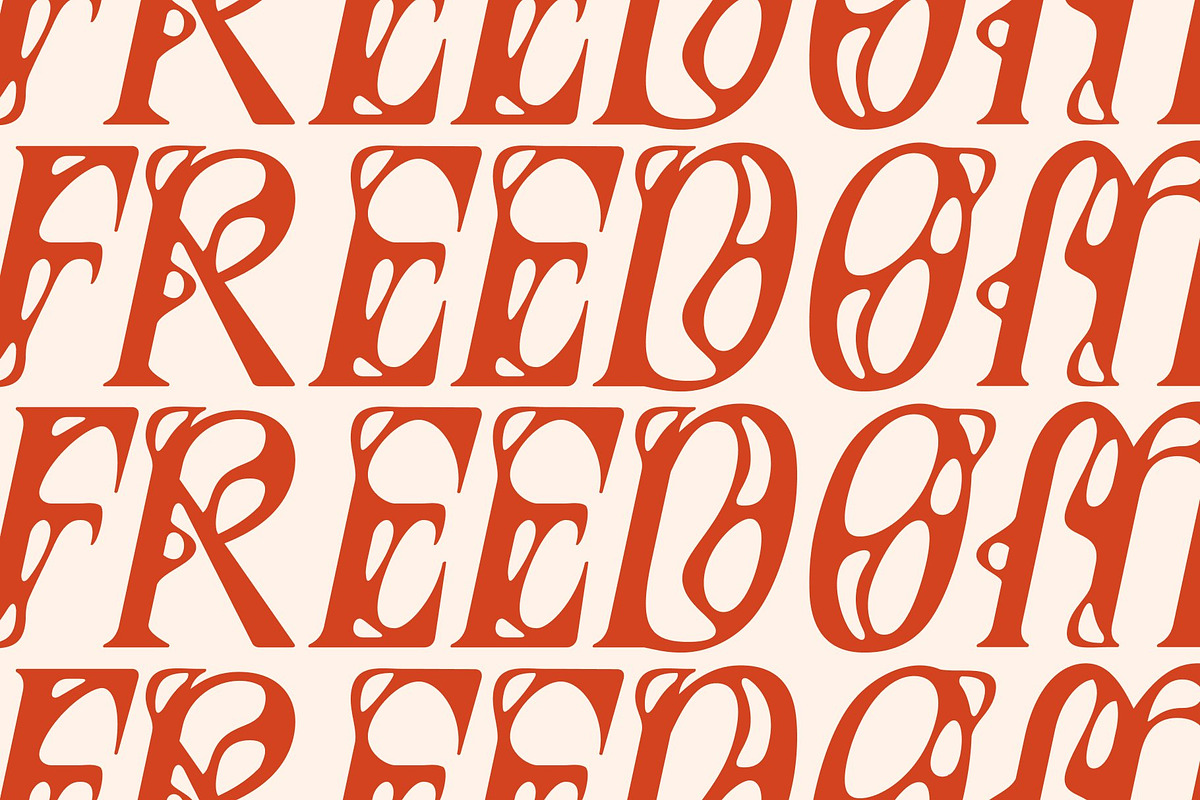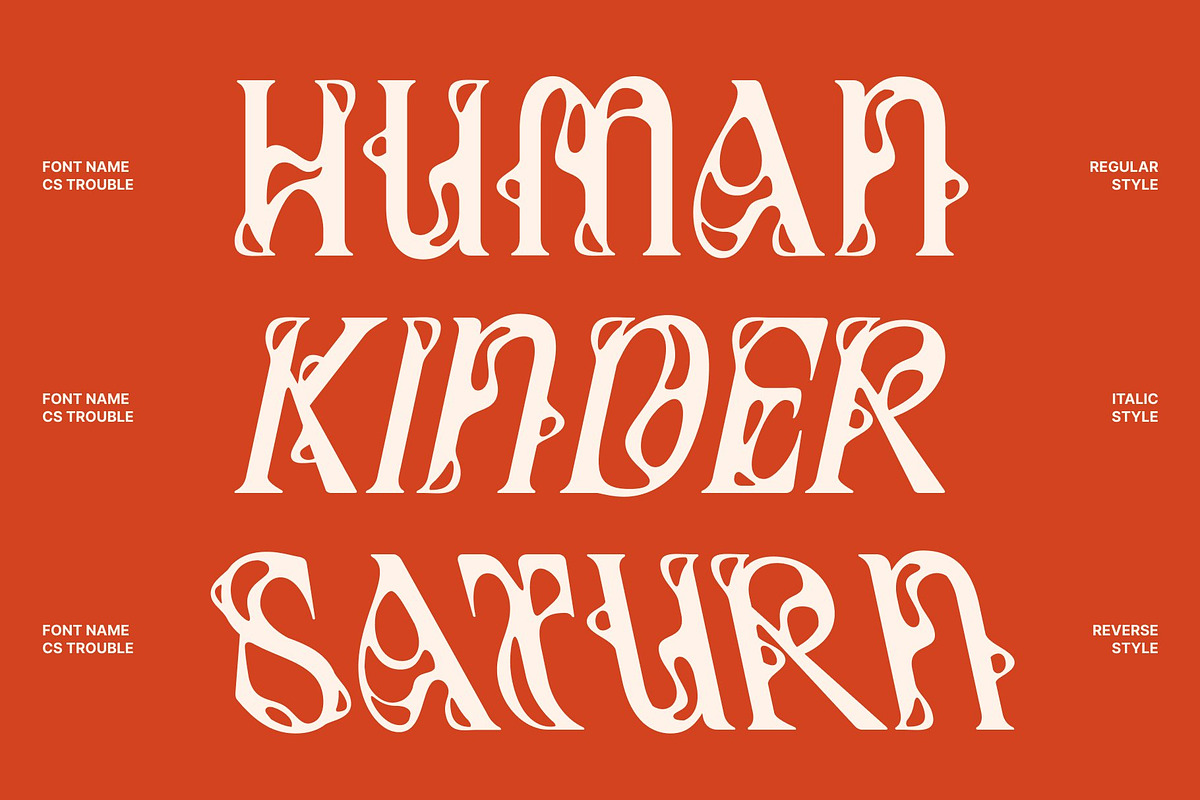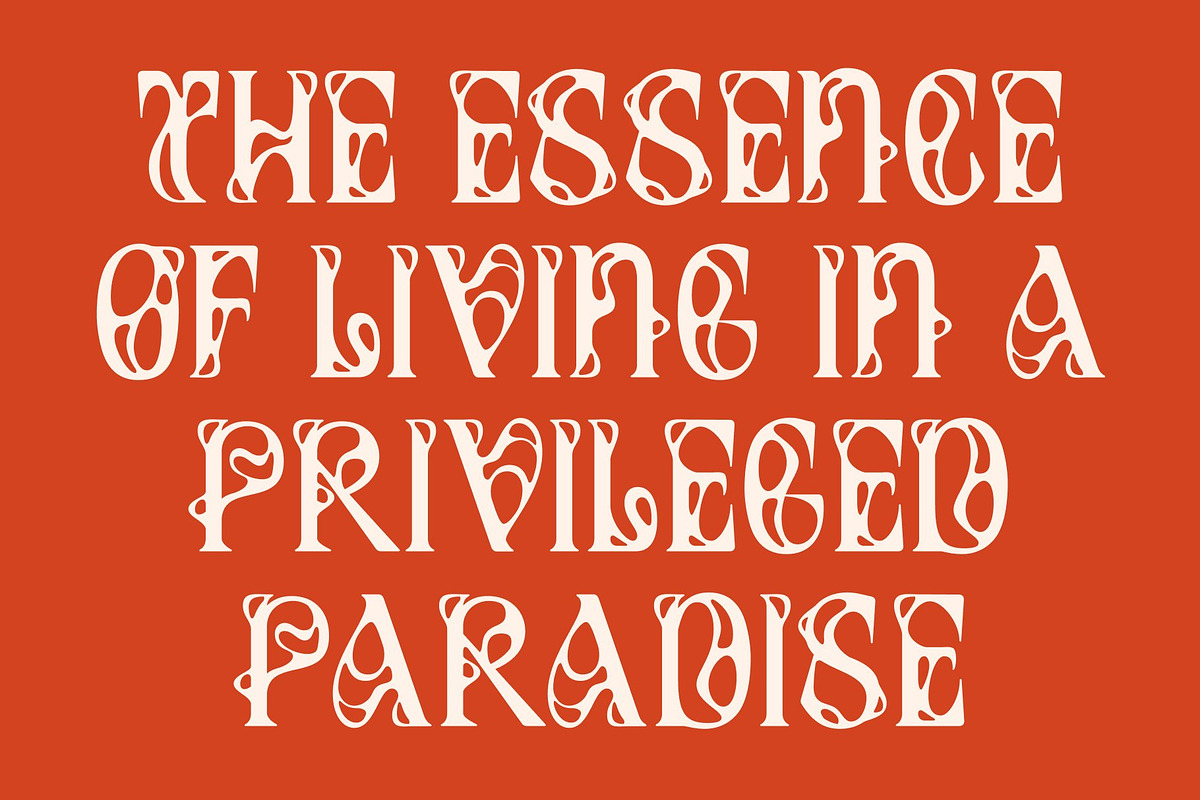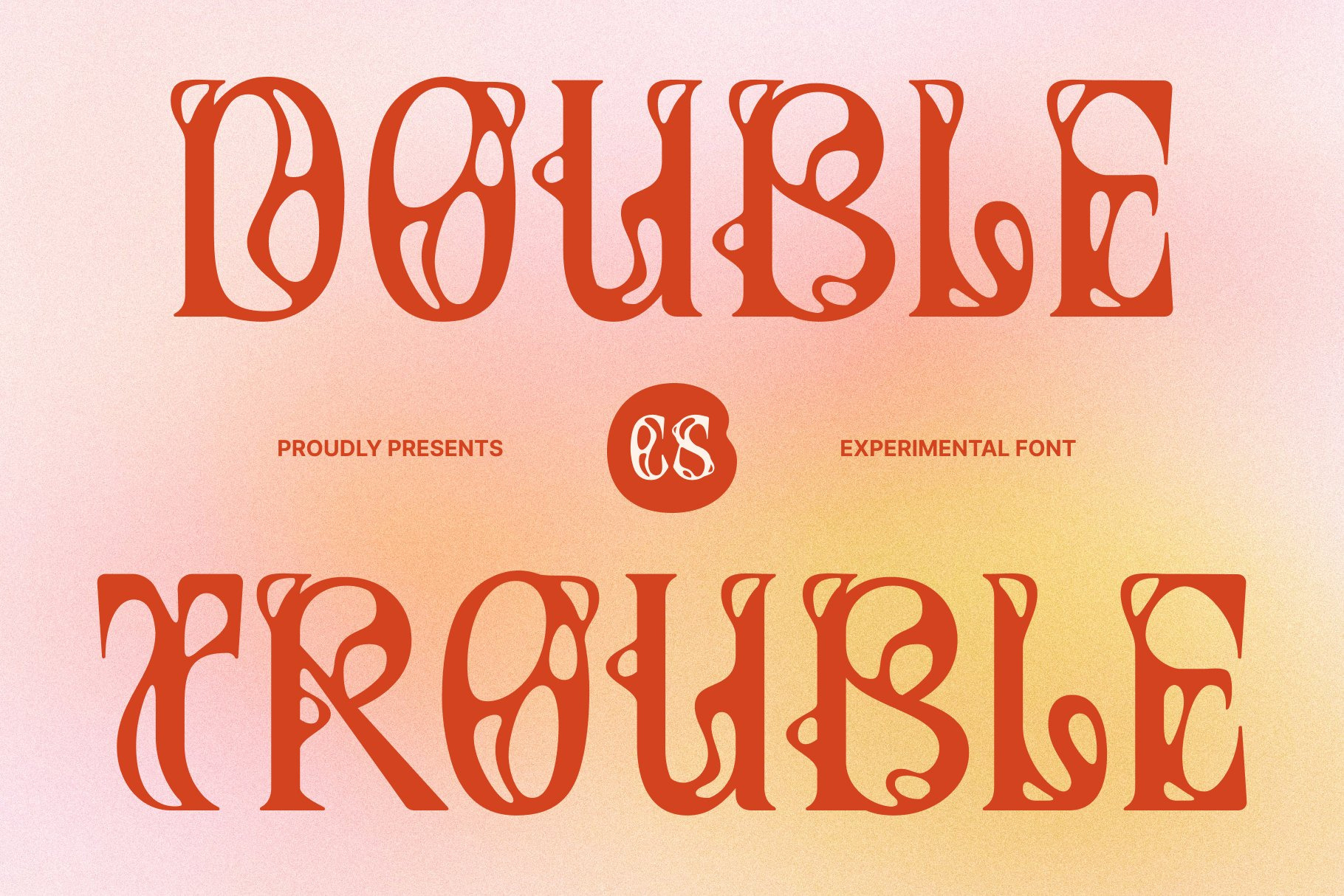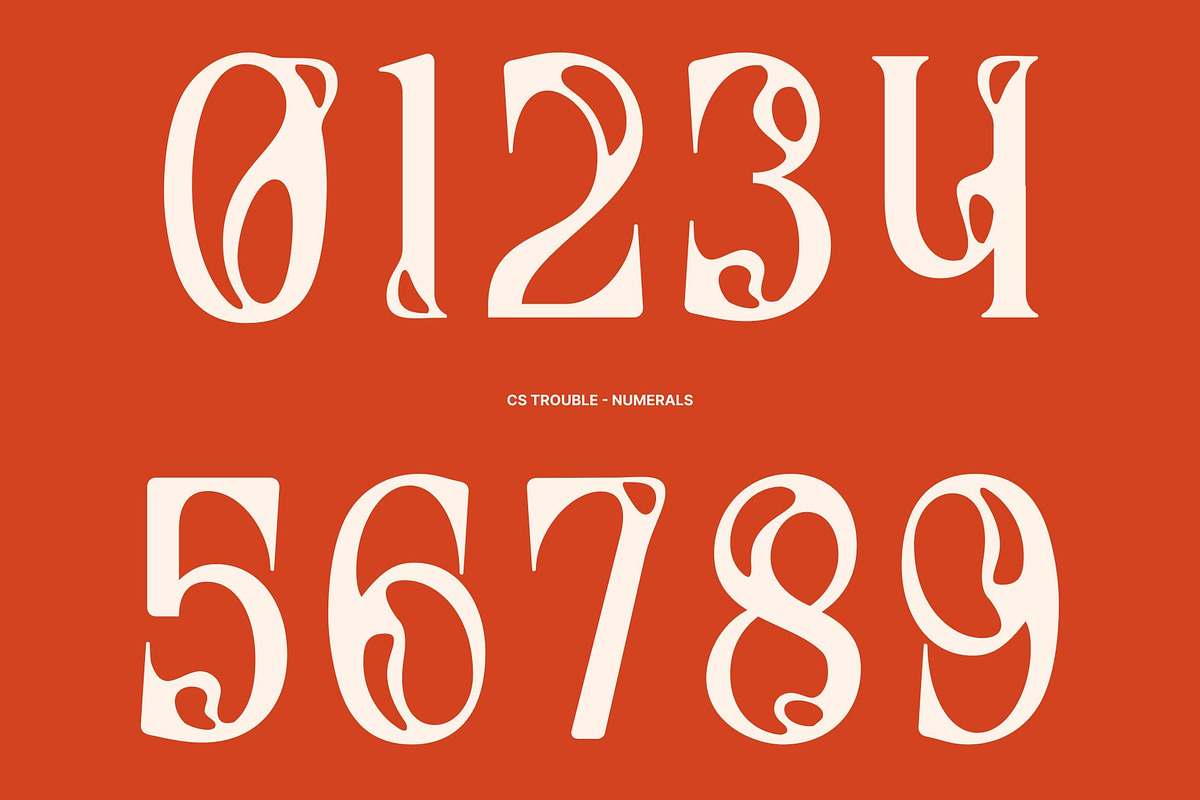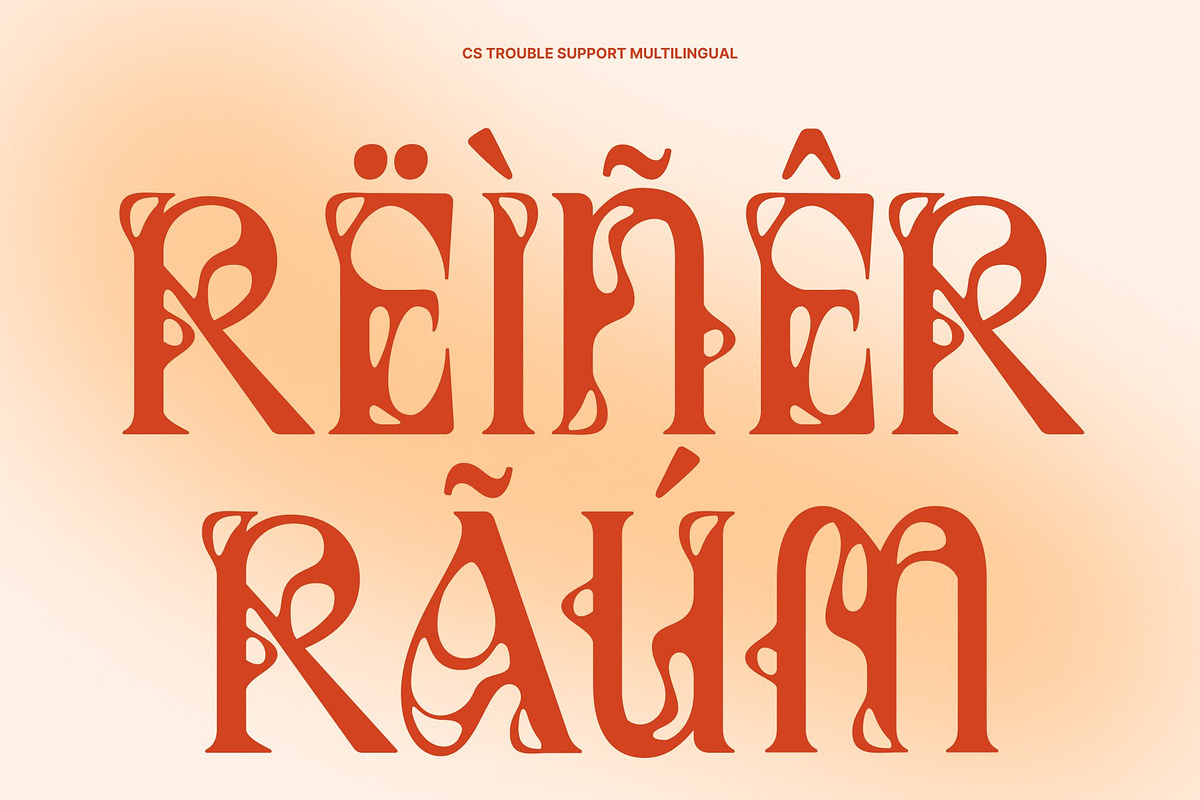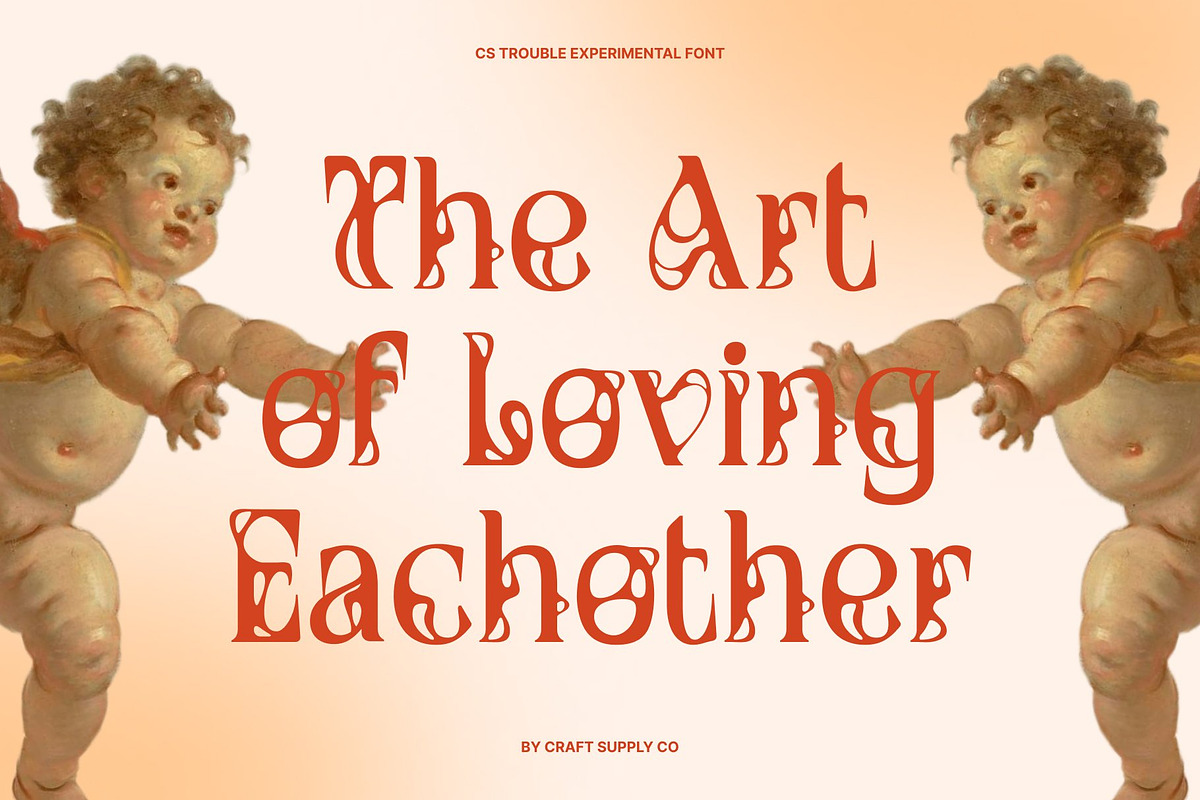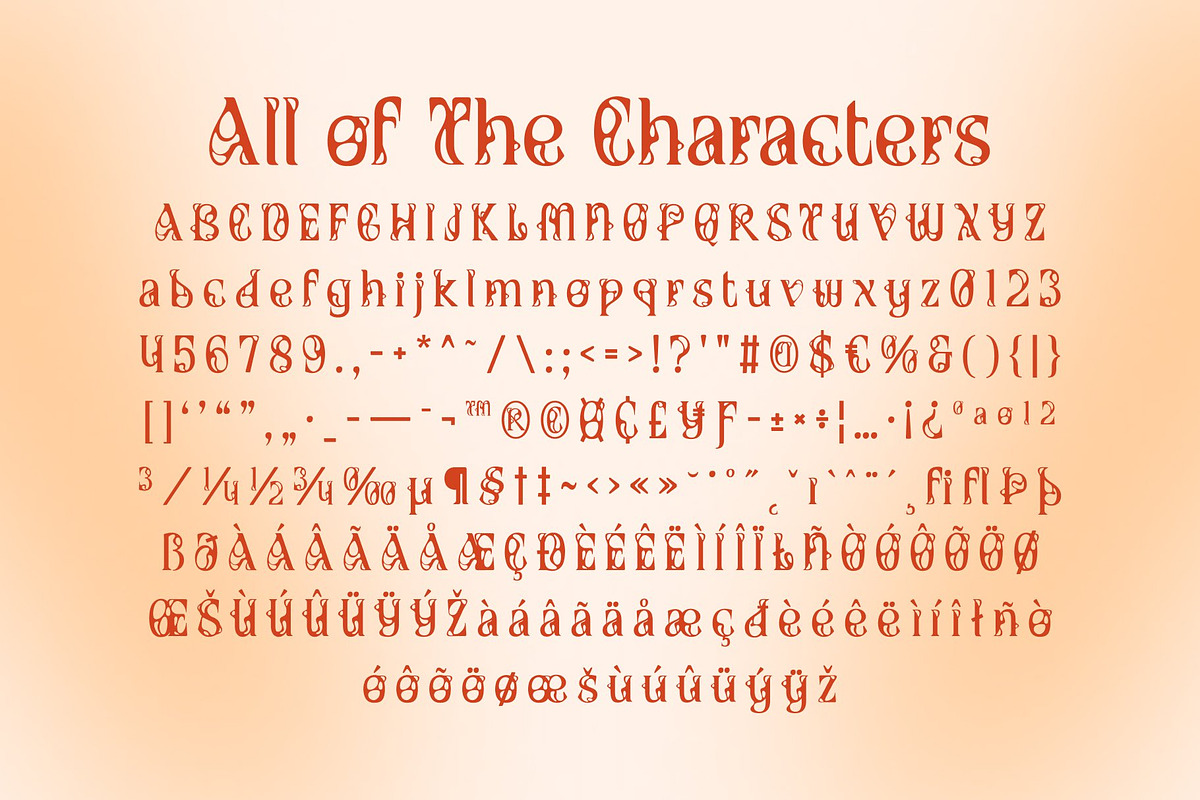
Trouble – Melted Serif Font
CS Trouble – Experimental Melted Serif with Artistic Flow
Stylish Serif with Unique Melted Concept This is a stylish serif font that transforms classic typography into a bold artistic statement. Designed with a distinctive melted concept, this typeface blends traditional serif elegance with experimental creativity. The result is a font that feels expressive, unconventional, and instantly eye-catching, perfect for designers who want to push visual boundaries.
Fluid Letterforms with Dripping Movement The defining feature of this font lies in its flowing, melted letterforms that appear to drip and move with controlled energy. This fluid effect introduces a sense of motion and organic rhythm, turning every word into a dynamic visual element. The combination of classic serif structure and liquid distortion creates a captivating contrast that feels both timeless and futuristic.
Expressive Personality with Artistic Edge This font radiates creativity through its unique shapes and playful irregularities. The font captures attention with ease, making headlines feel bold, artistic, and full of personality. Its experimental style invites designers to explore new visual directions while maintaining the sophistication of serif typography.
Perfect for Standout Creative Projects Ideal for posters, album covers, branding, editorial layouts, and experimental graphics, this font gives projects a modern twist on classic typography. Its melted aesthetic ensures every design feels memorable, energetic, and visually striking, making it the perfect choice for work that aims to stand out and leave a lasting impression.
CS Trouble Regular
CS Trouble Italic
CS Trouble Reverse Italic